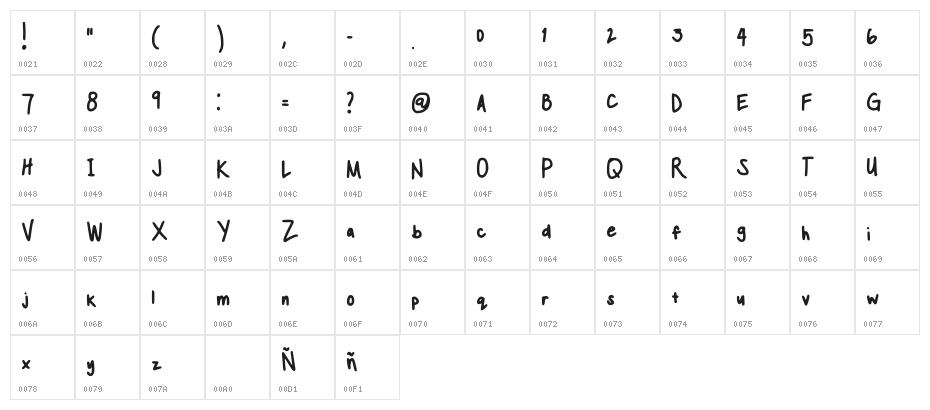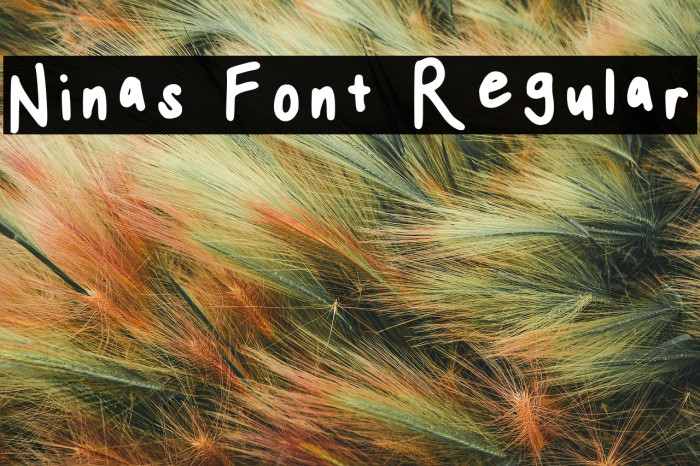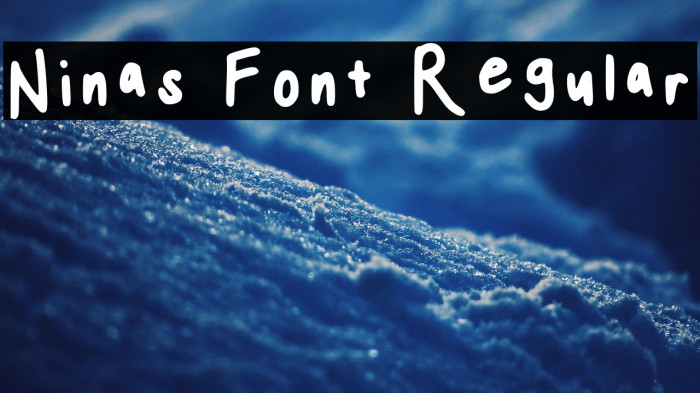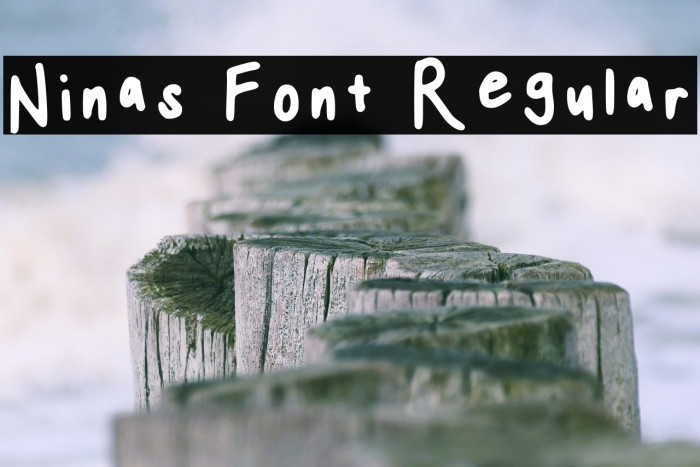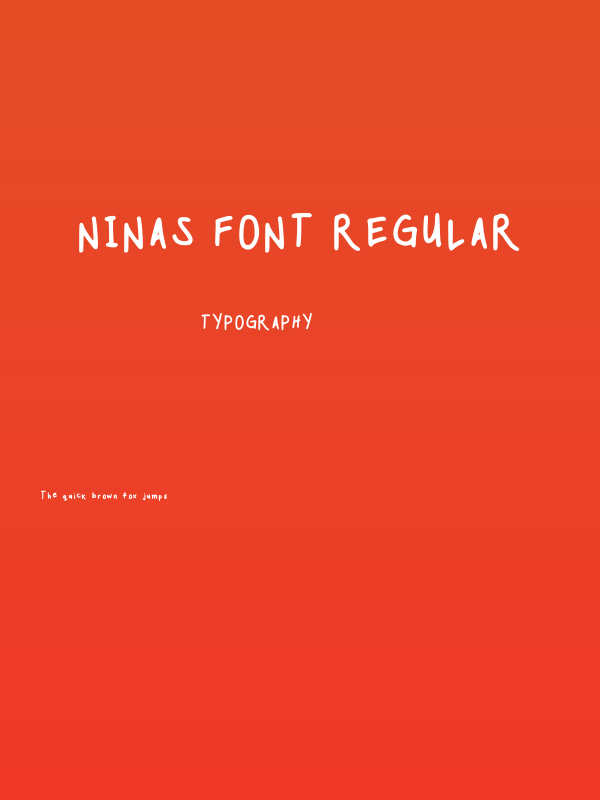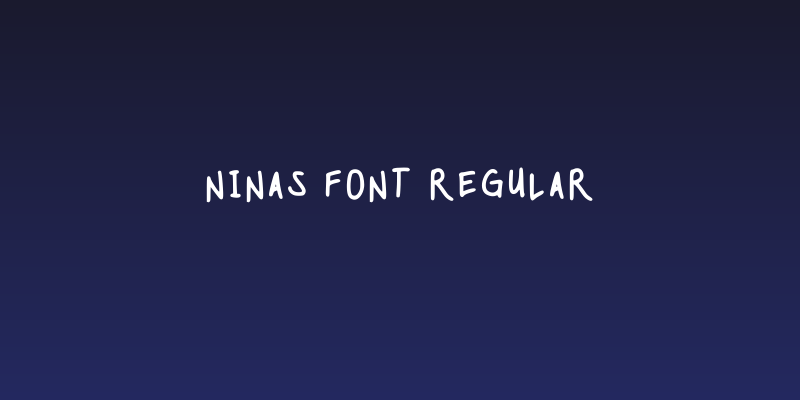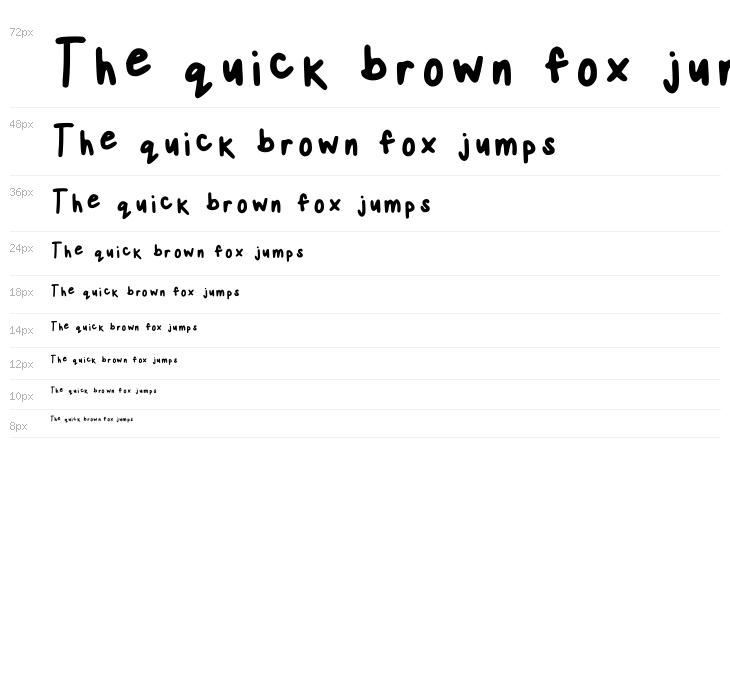
Ninas Font Regular Font
Ninas Font Regular Description
A playful, handwritten font with irregular strokes and a casual appearance.
| Use Case | Informal text, creative projects. |
| Proposed Projects | Greeting cards, children's books, informal invitations. |